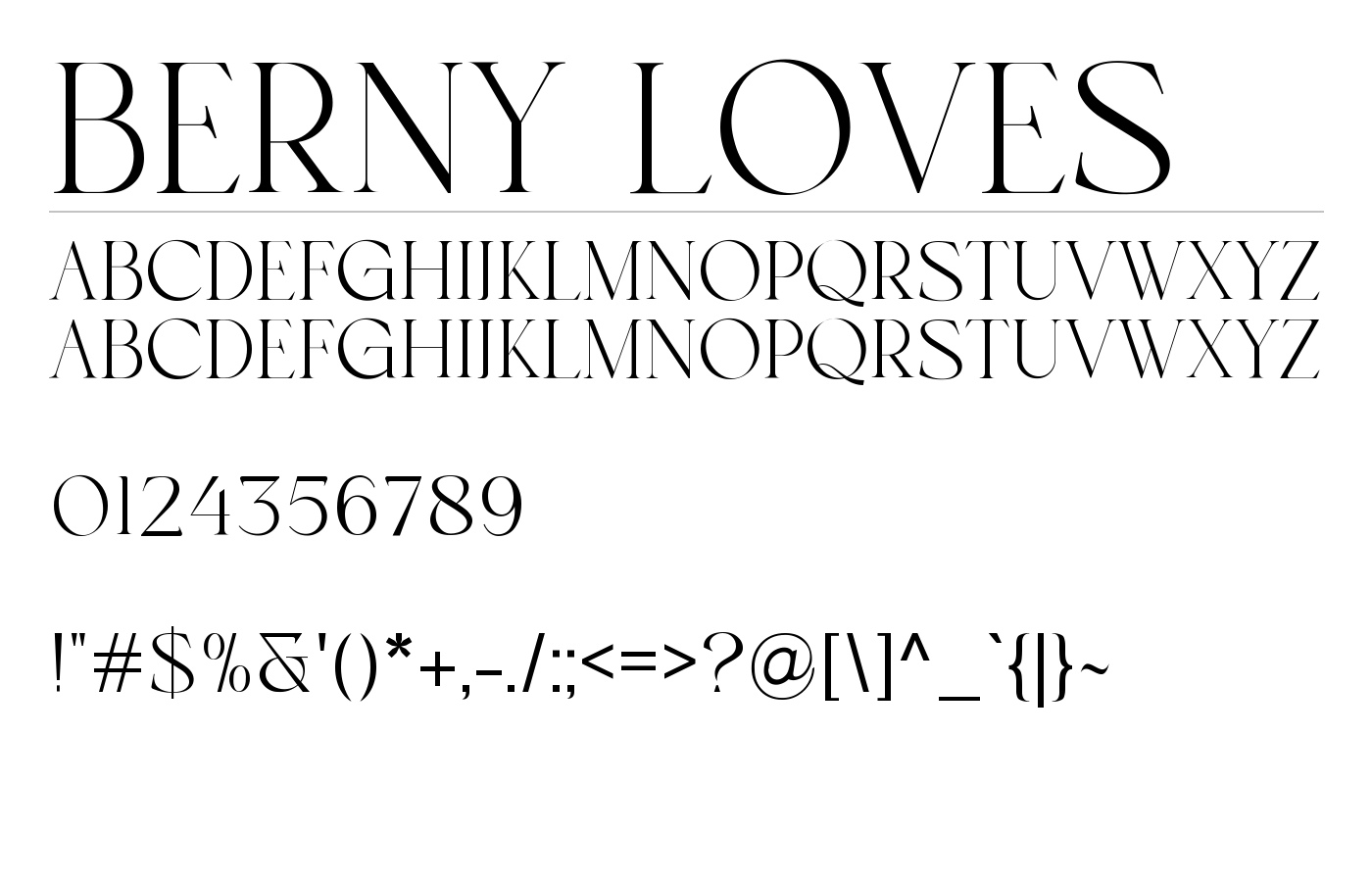
BERNY LOVES is an elegant serif font with a high contrast between thin and thick strokes, showcasing a refined and modern Didone style. Its tall, slender letterforms and sharp, delicate serifs give it a luxurious and sophisticated feel, perfect for fashion branding, editorial headlines, and upscale design projects that demand a touch of classic elegance. This font shines in large sizes where its graceful details can be fully appreciated.
BERNY LOVES Font
About BERNY LOVES Font